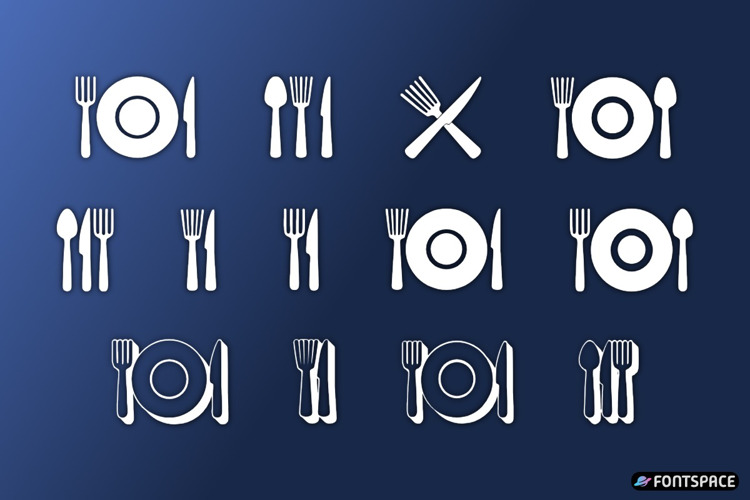
Food Icons Font
Food Icons is a dingbat font by Vladimir Nikolic with 26 restaurant-themed symbols: plates with forks, knives, and spoons in different arrangements. Type A–M or a–m to place each icon — handy for menus, recipes, invitations, and food blogs. Free for personal use.